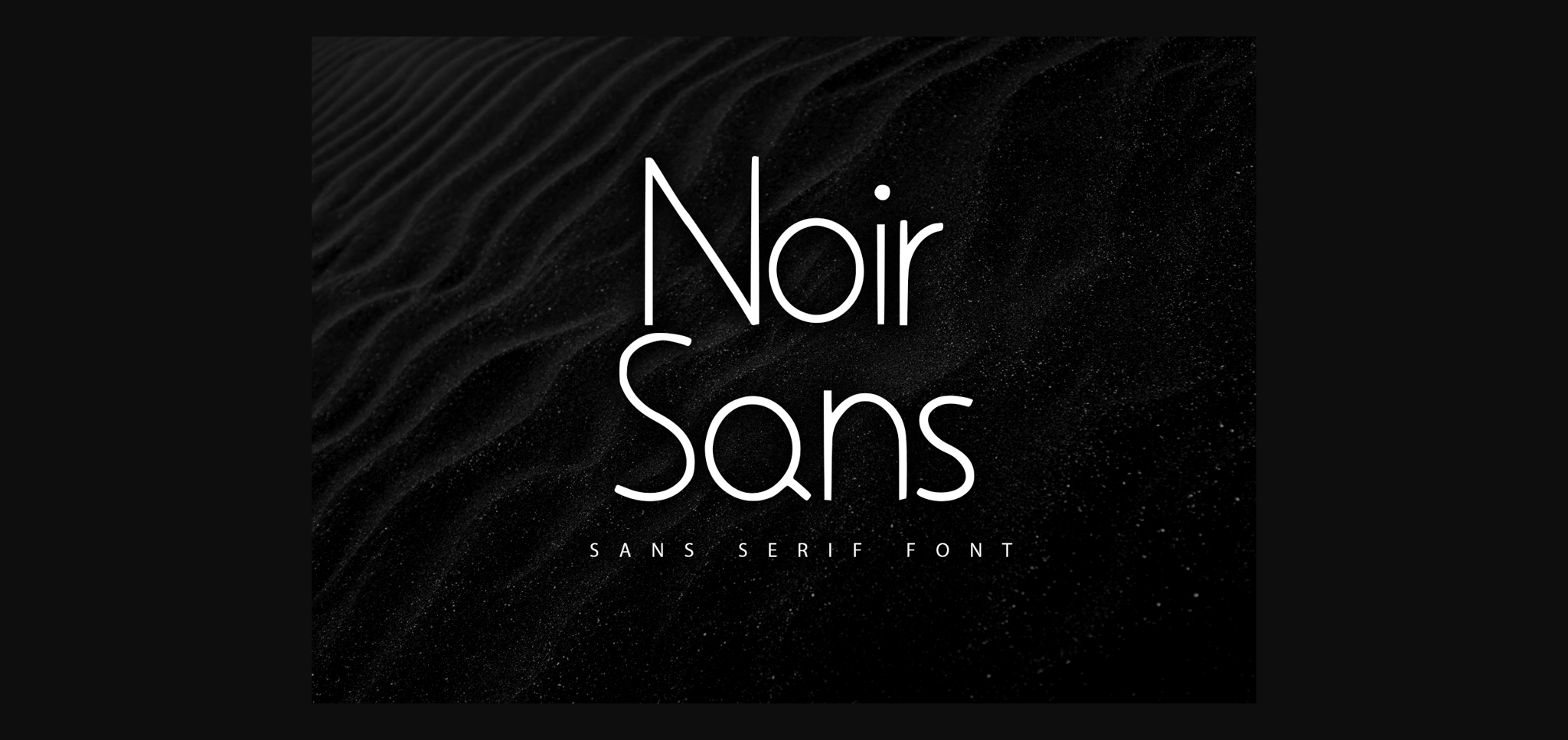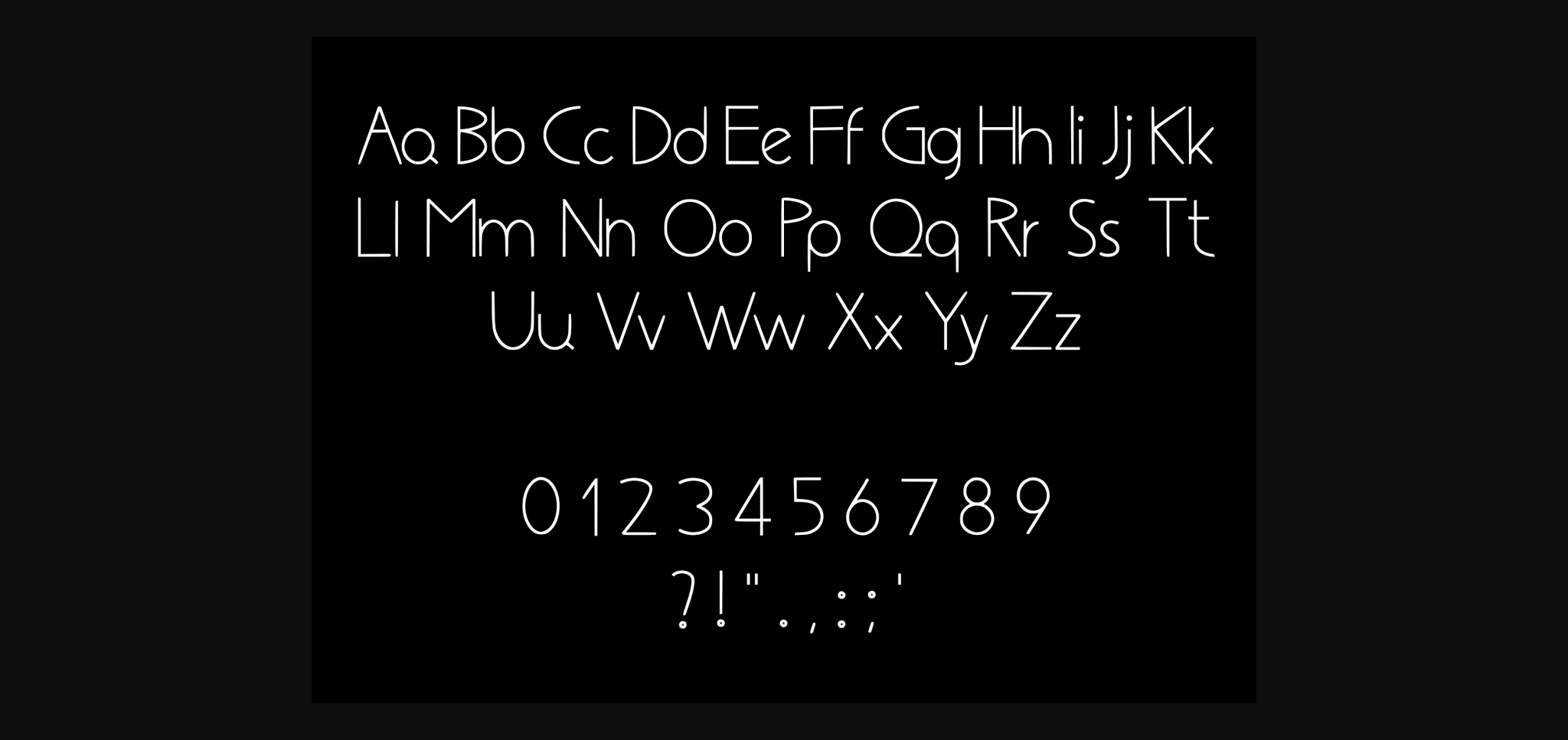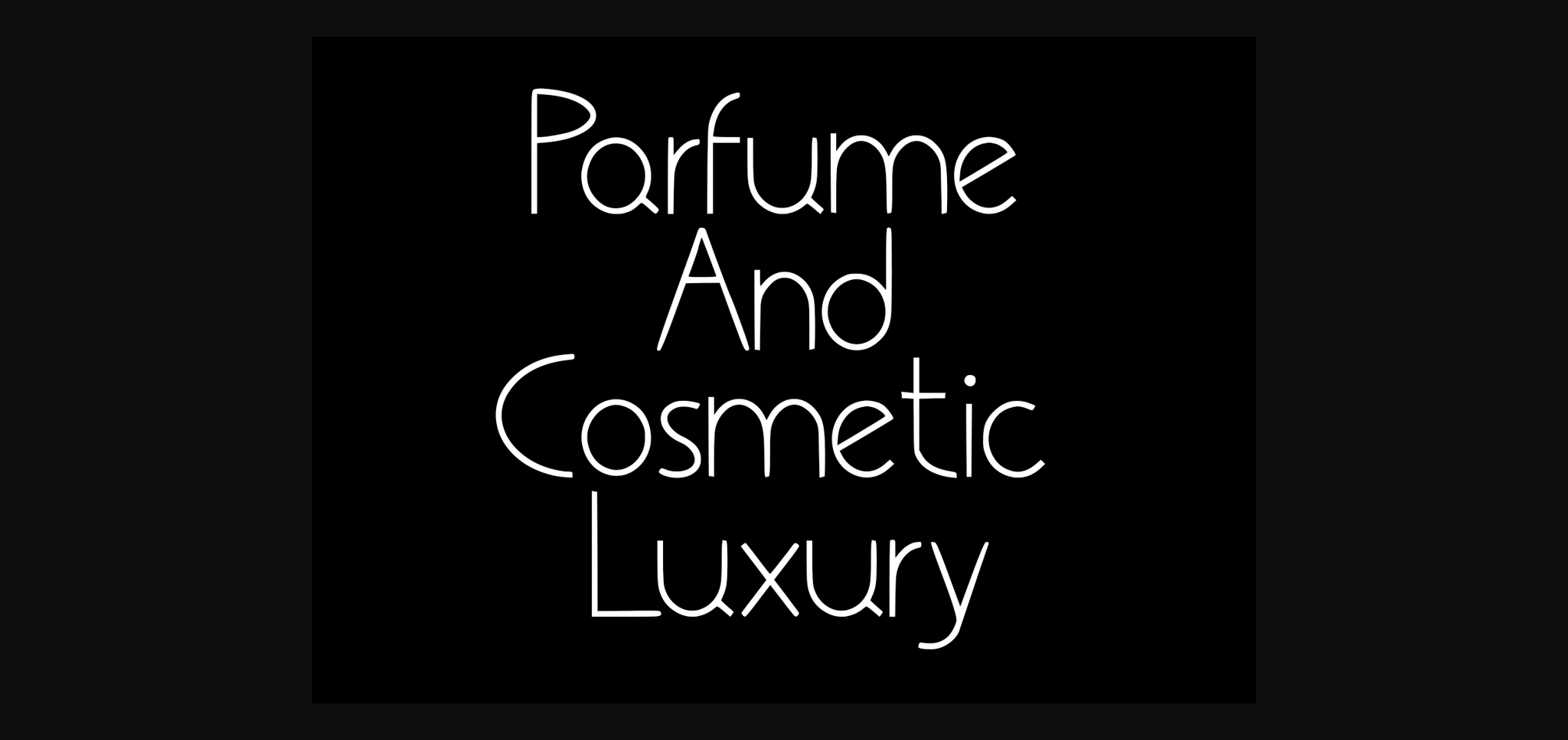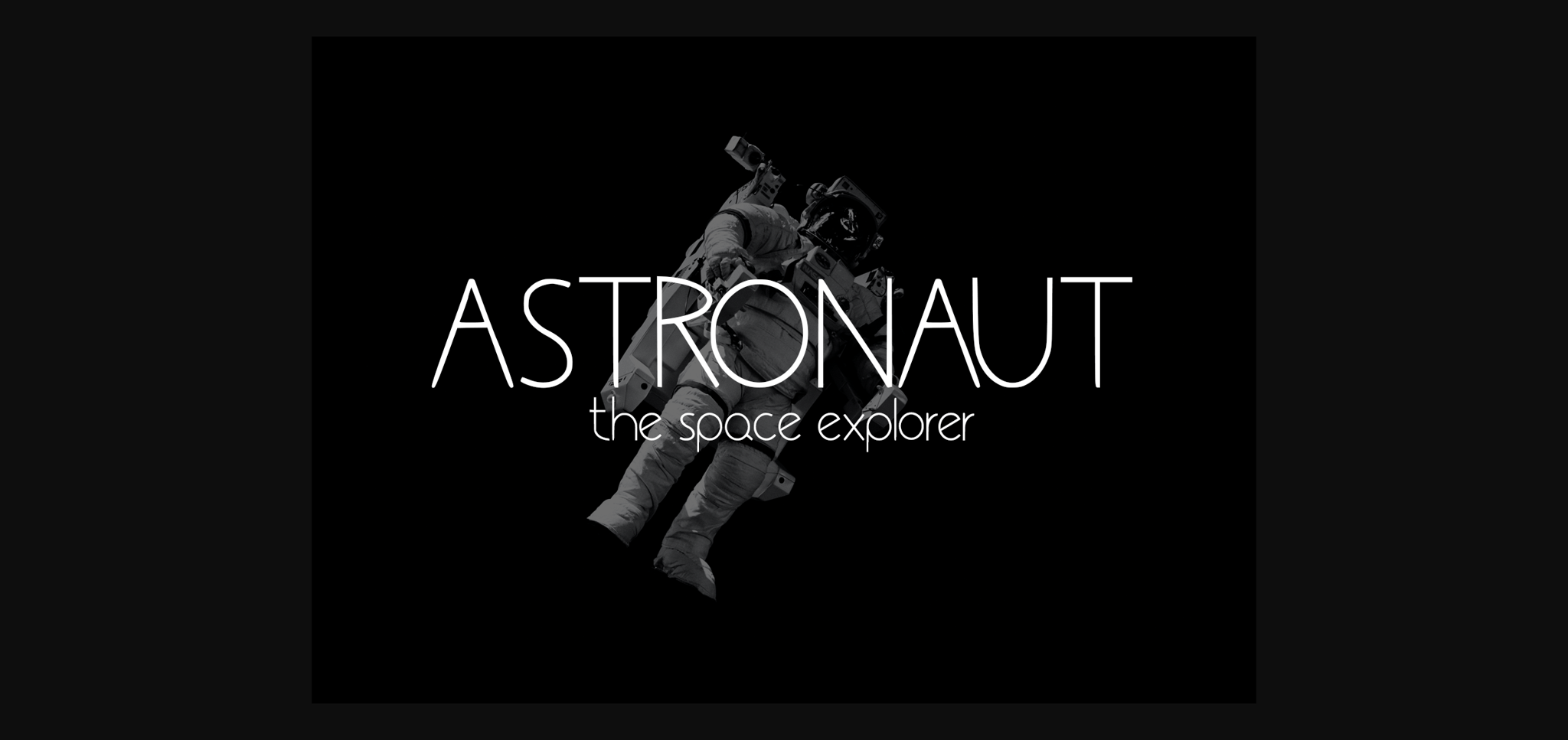
Noir Sans Font
About Noir Sans Font
Noir Sans is a modern and clean sans serif font. This font can be used for product design, branding, album covers, posters, or anything that needs a neat, sleek look.